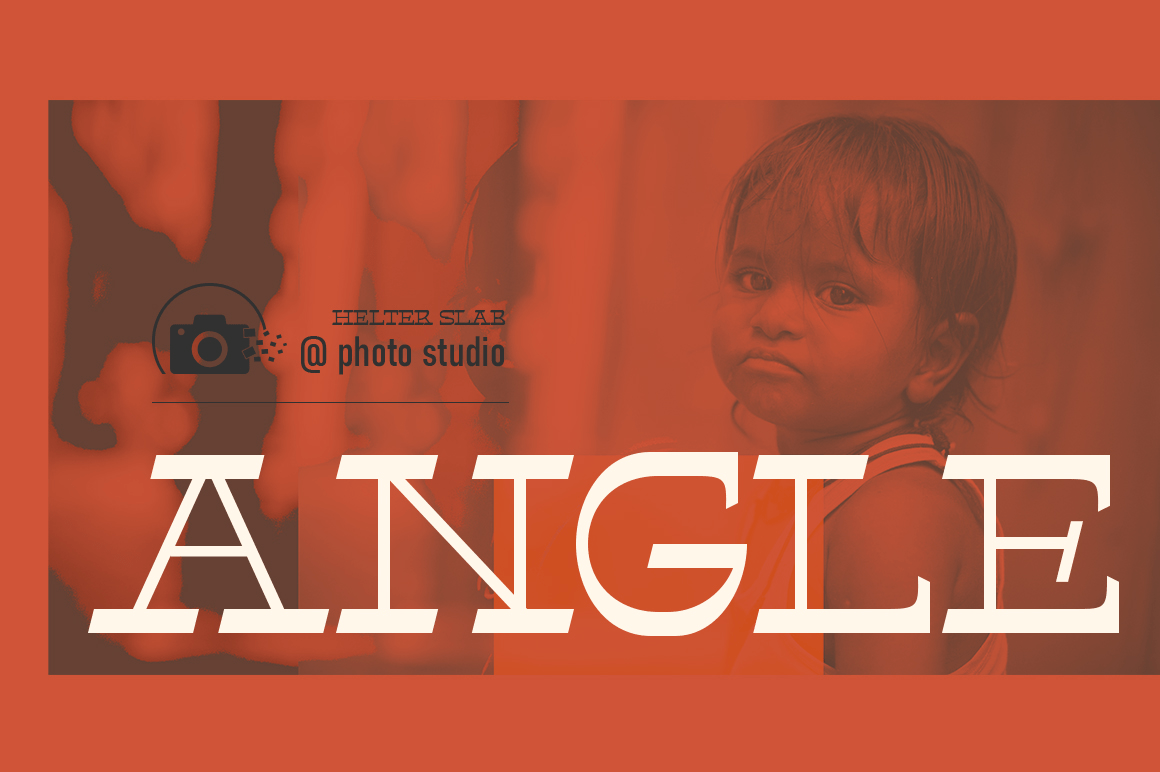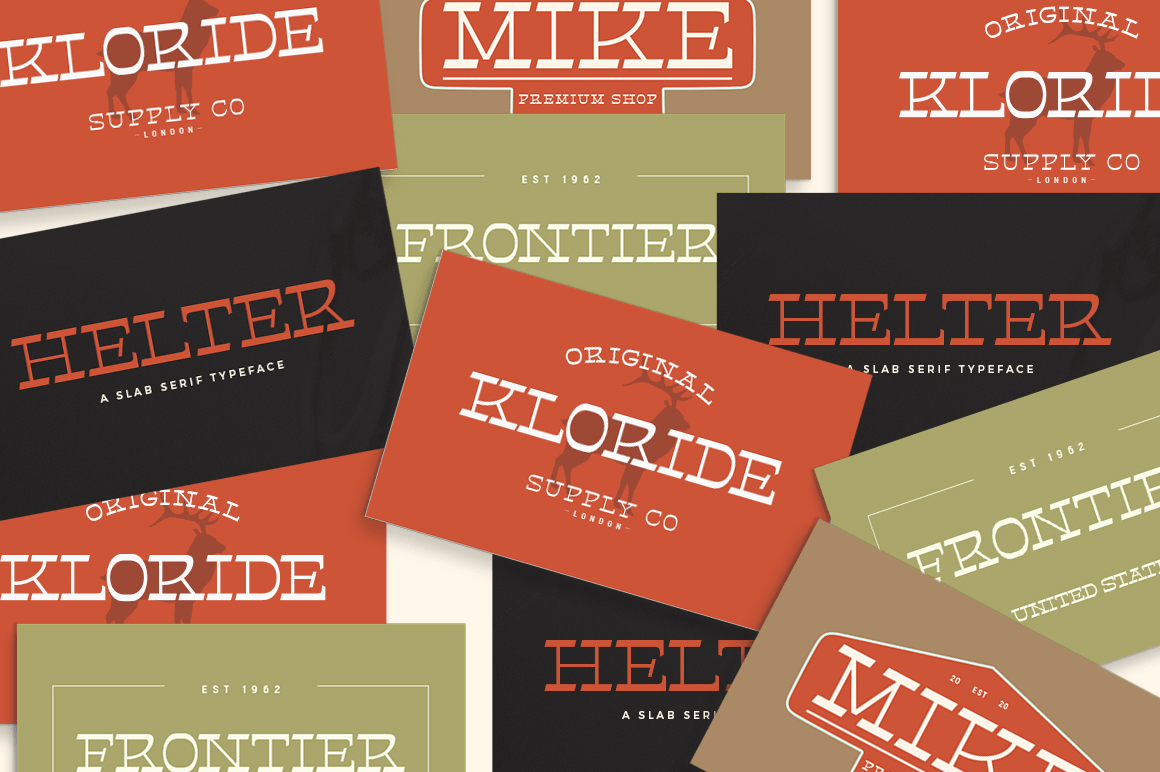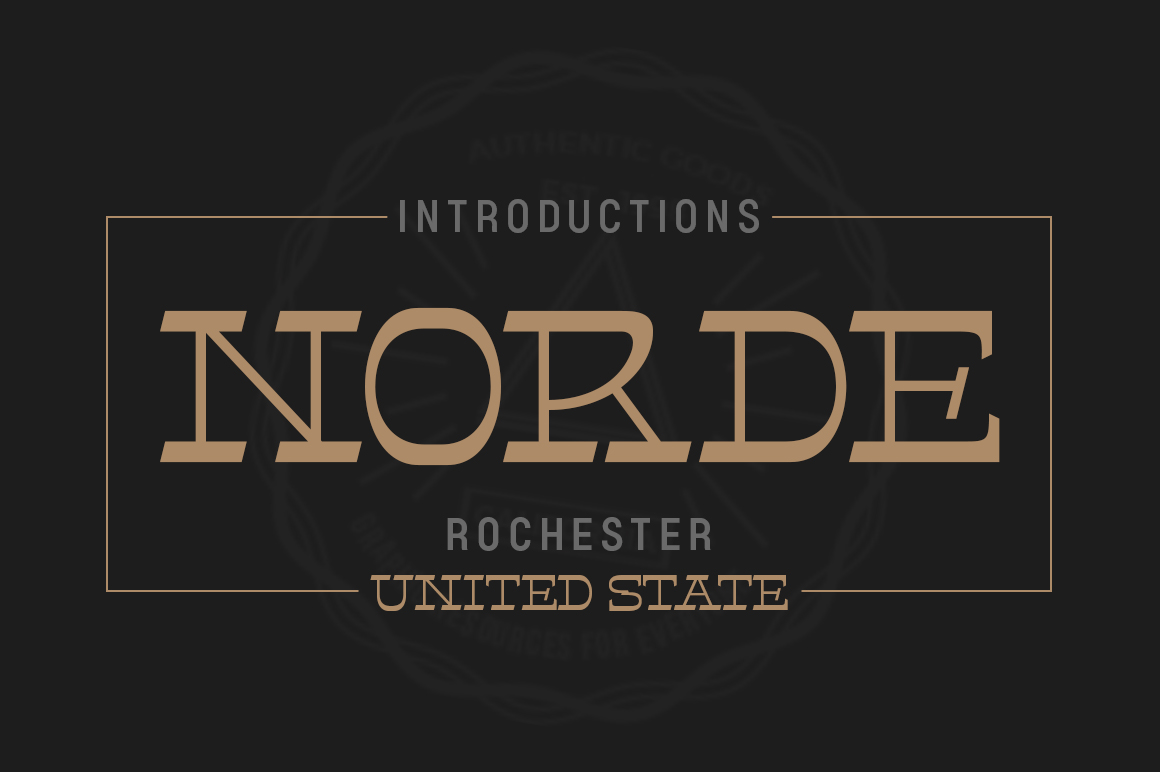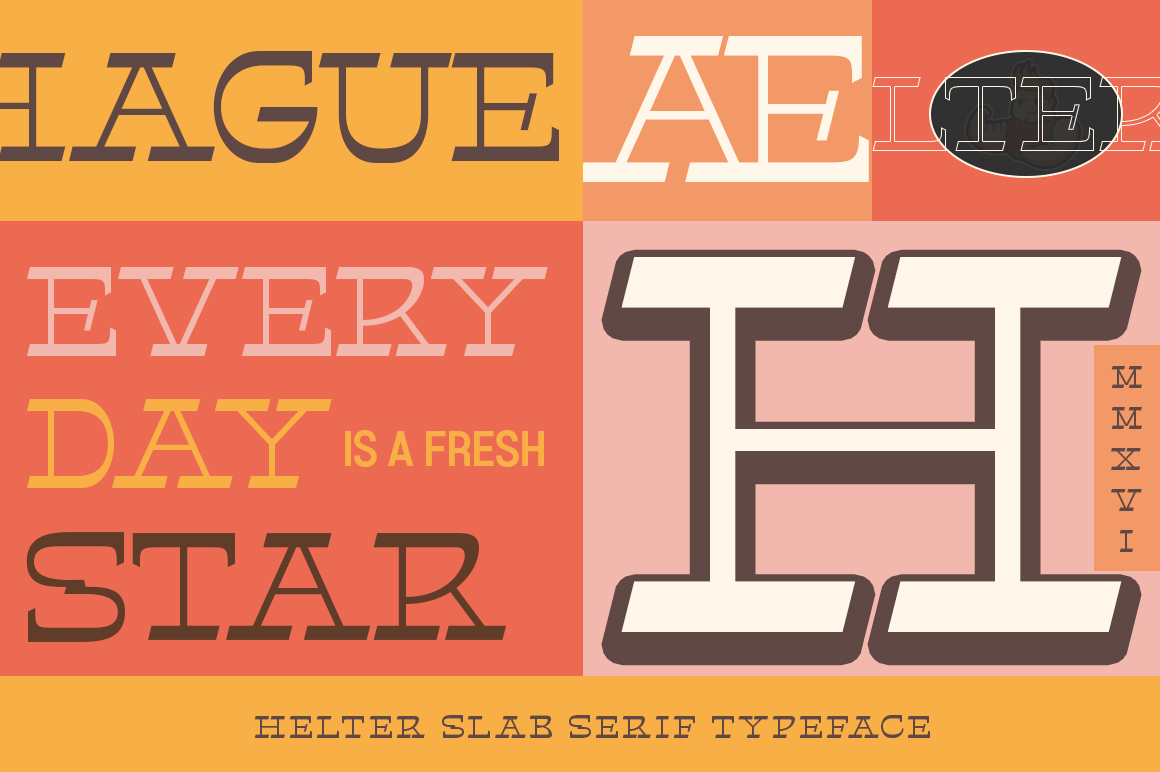
About Helter
NEW! Helter is a slab-serif font that gives off a clean and very elegant feel that has a strong and bold look. The slab is thick and does not regret the size of the width. The slab-serif Helter is perfect for your upcoming project which is applied especially…